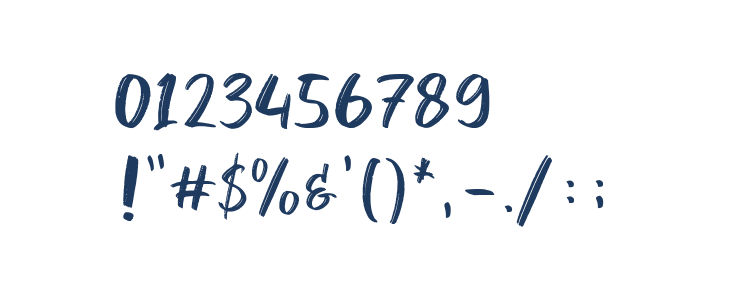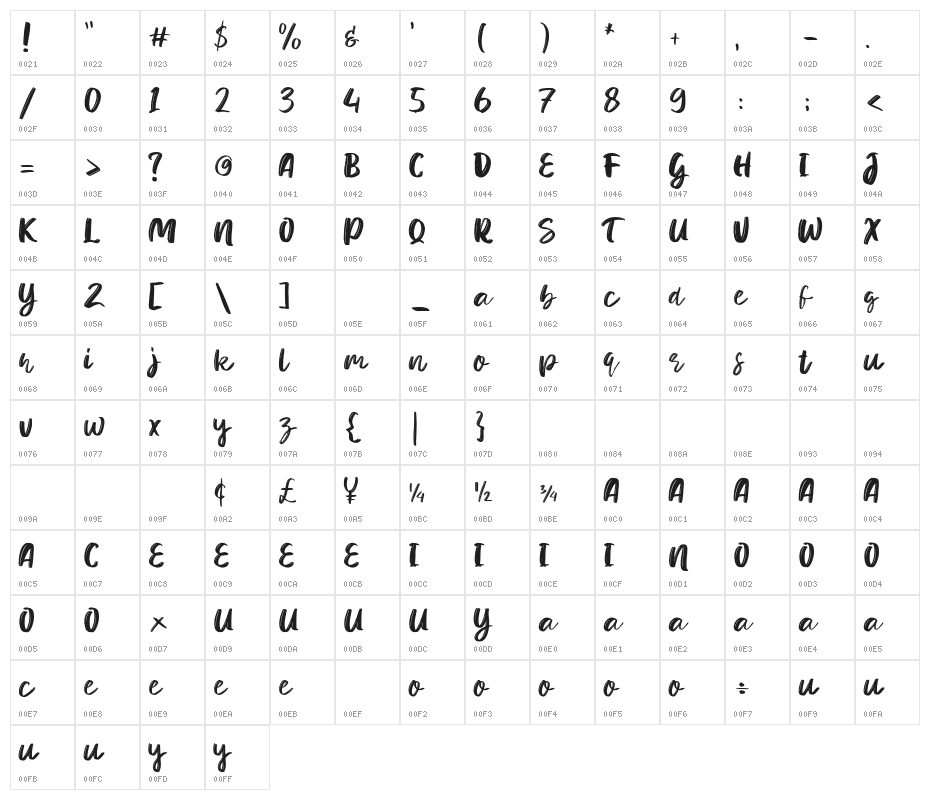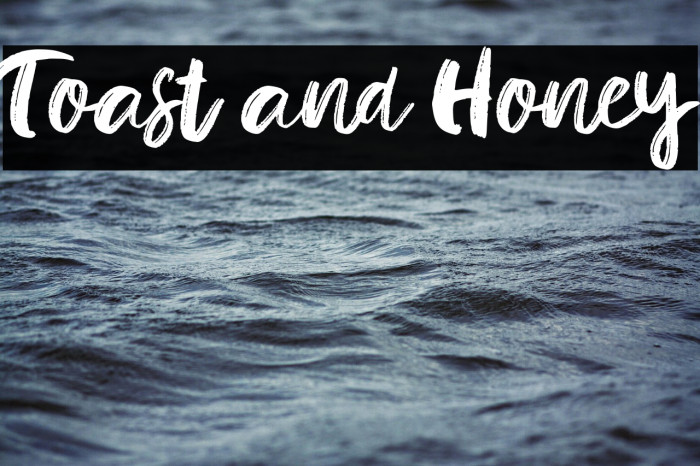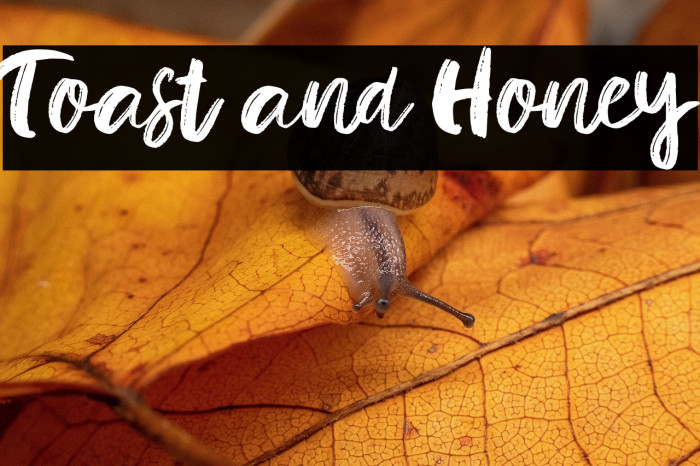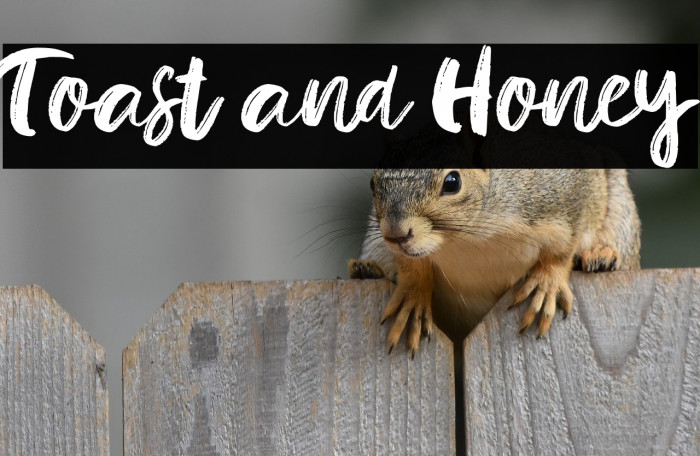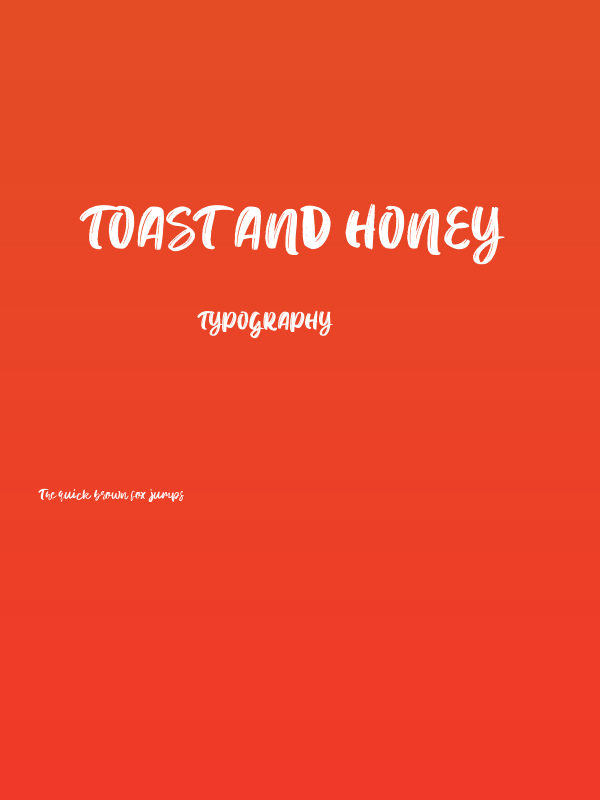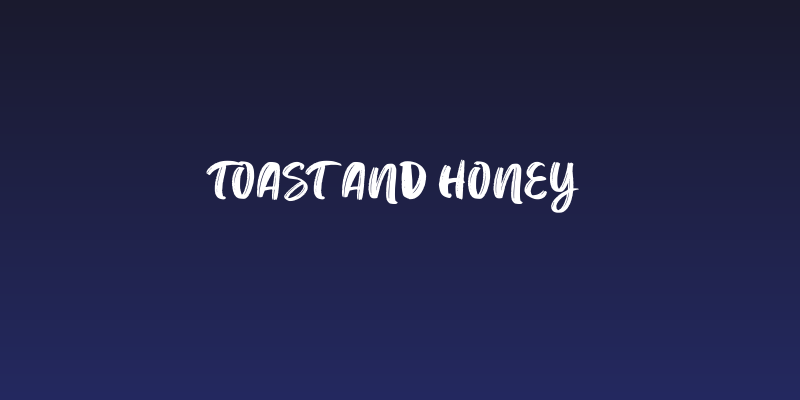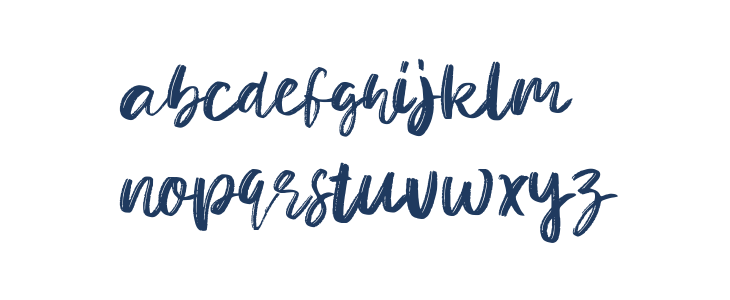
Toast and Honey Font
Toast and Honey Description
This font exudes a lively and energetic vibe, characterized by its bold, brush-like strokes that give it a hand-painted appearance. The letters are slightly slanted, adding a dynamic flow to the text, while the varying stroke widths create a sense of movement and texture. The uppercase and lowercase letters maintain a consistent style, with rounded edges and a playful, informal feel. The numerals and special characters are equally expressive, making them stand out in any design. This font is perfect for projects that require a personal touch, such as invitations, posters, or branding materials that aim to convey creativity and warmth.
| Proposed Projects | Ideal for invitations, posters, branding, and any creative projects needing a personal touch. |